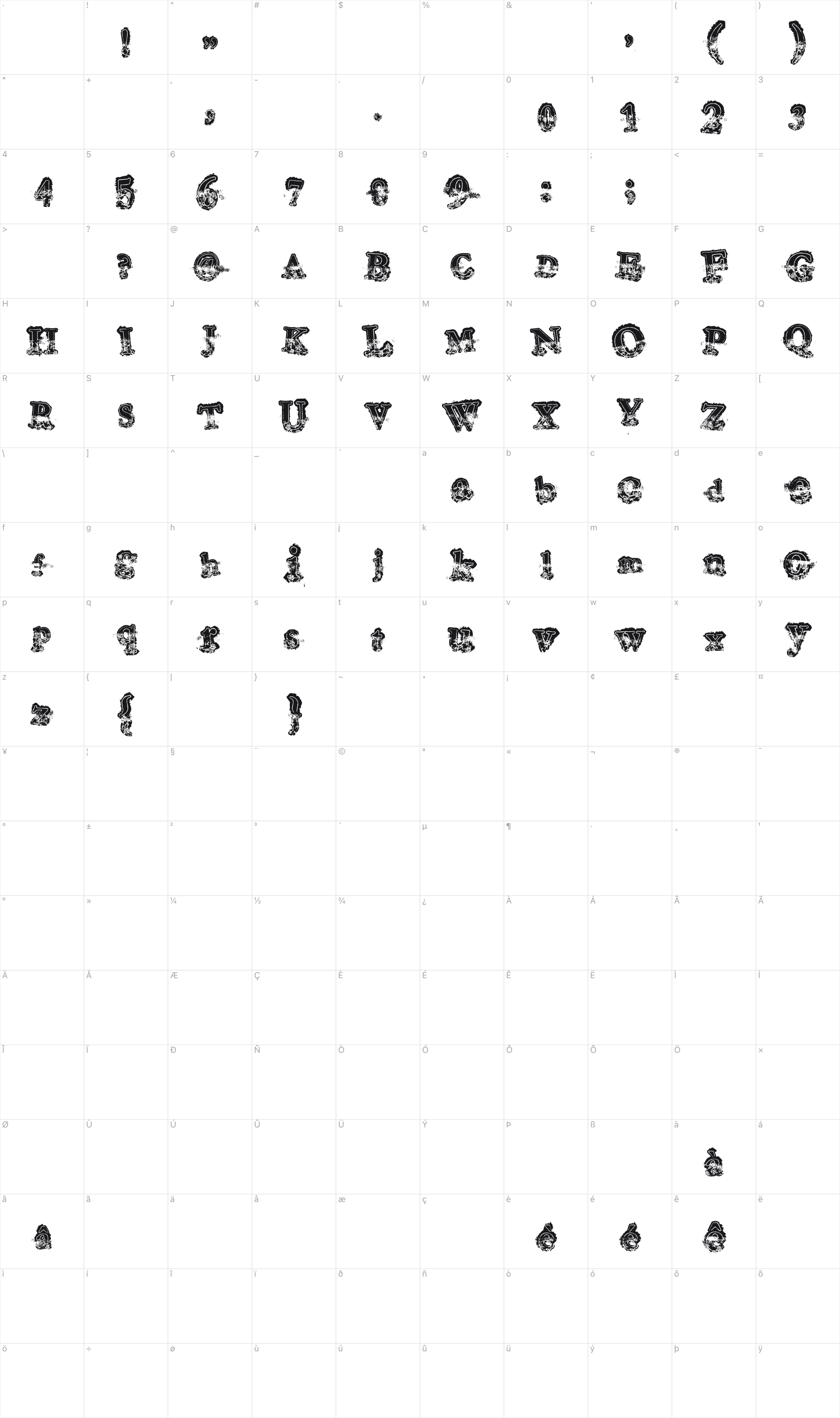
Mohawk
Mohawk is a heavy grunge display font consumed by distressed texture, torn edges, and splatter effects. The underlying forms are chunky and rounded, but erosion and noise dominate the surface to the point of visual chaos. It belongs on concert posters, band merch, and anything that needs to feel loud and underground.